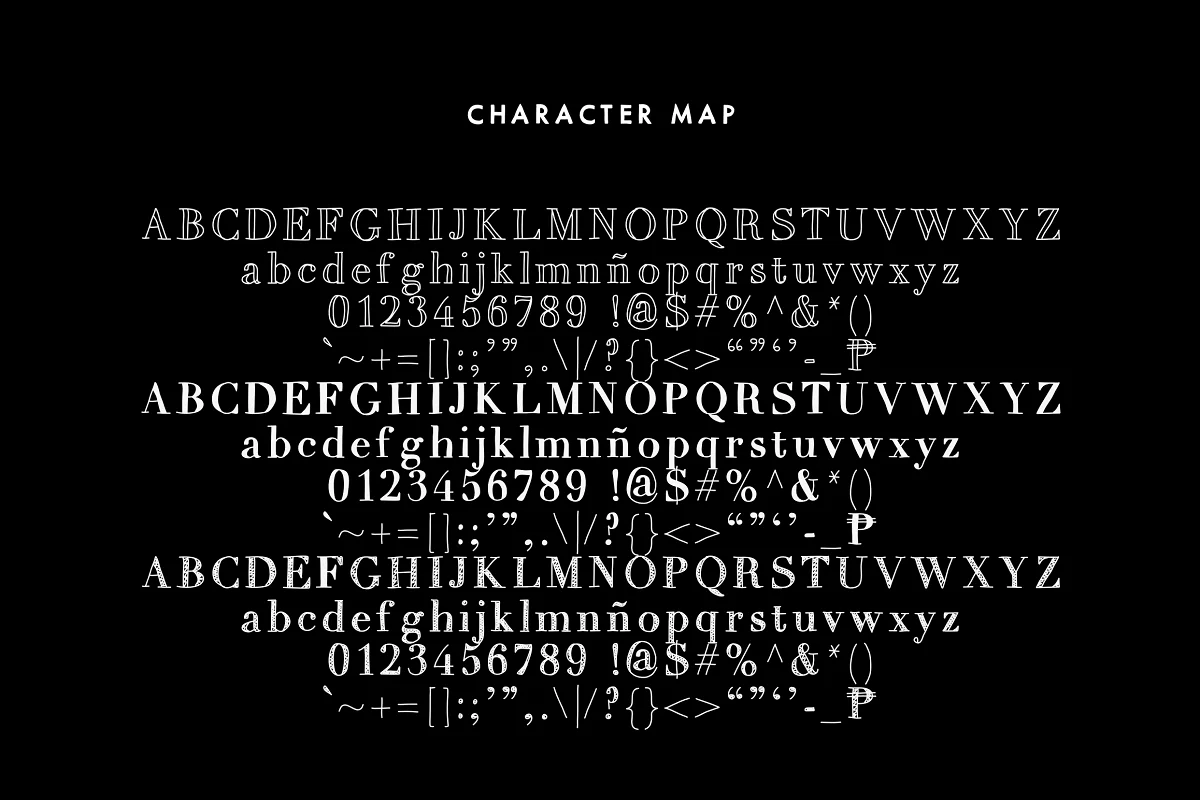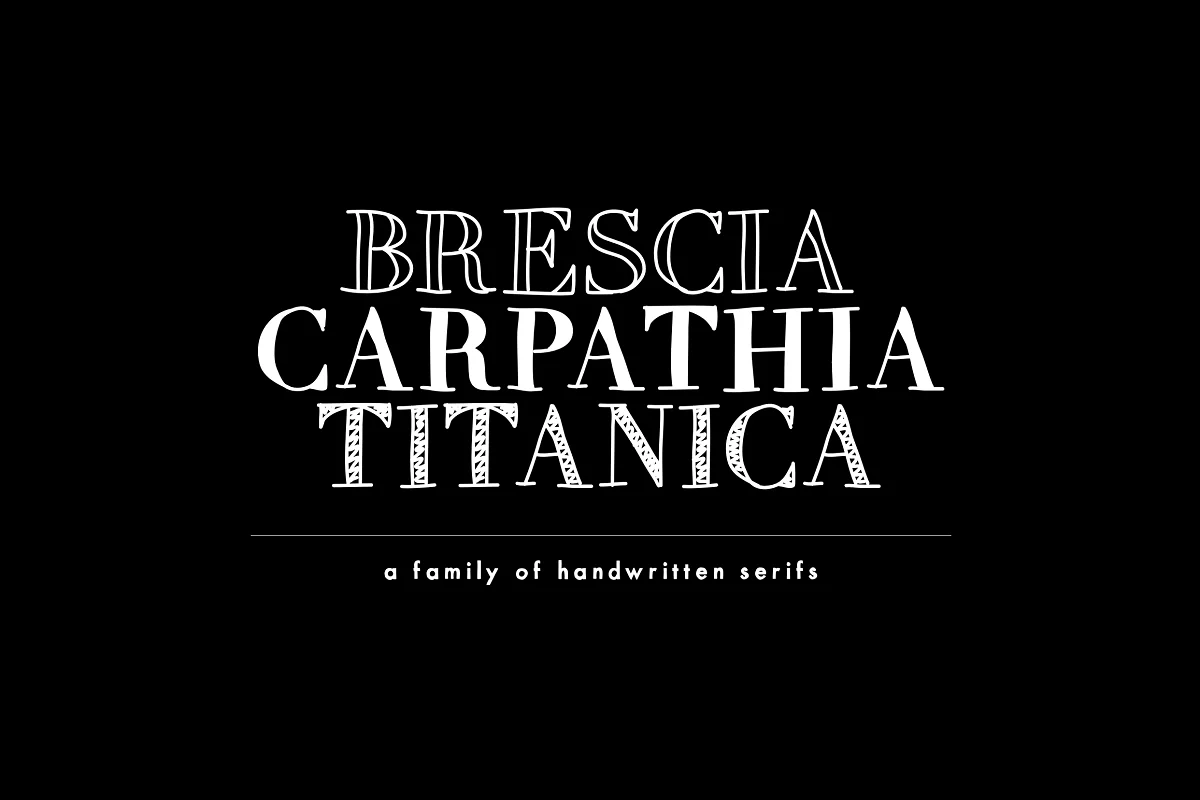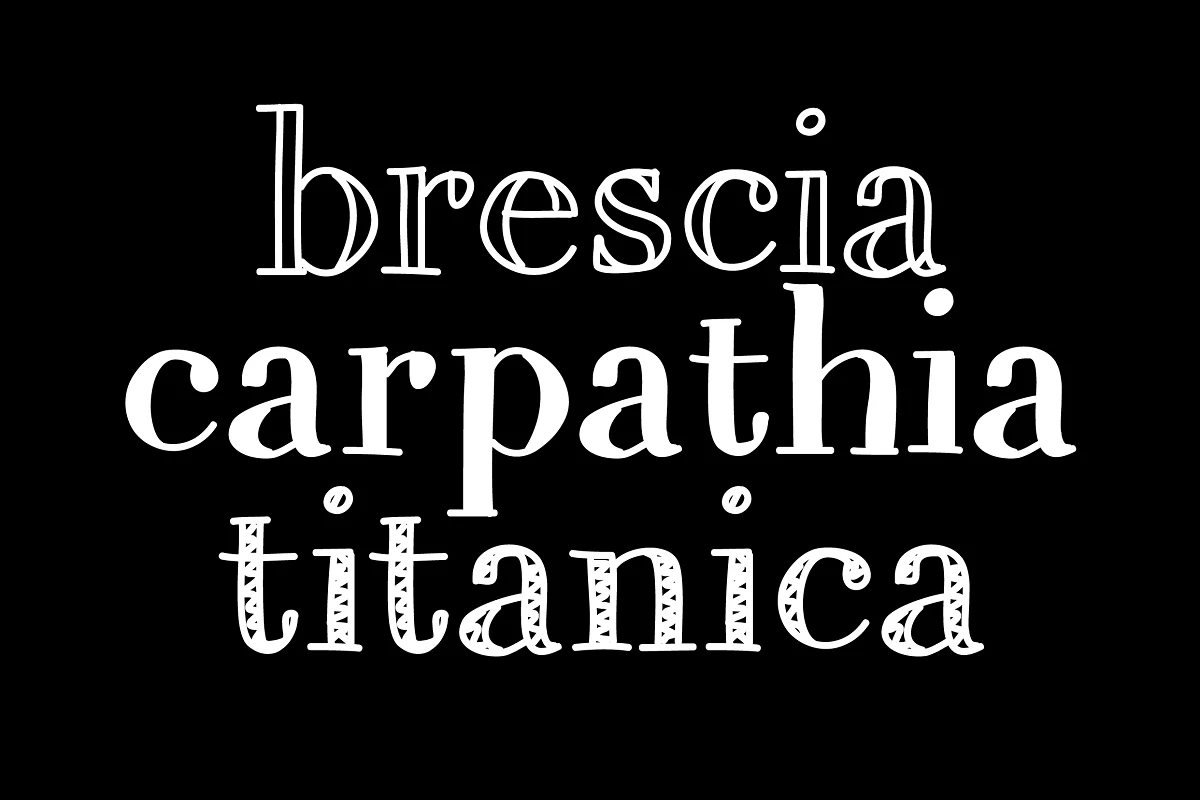
About the A Trio of Handwritten Serif Font
This is a family of handwritten serifs—a bundle of three different styles. These fonts can be used alone or in combination.
Switch up among the three fonts to create fun and interesting variations. Get creative! This font family is perfect for handmade and DIY-themed projects.
- (1) Mix Brescia
- (2) Mix Carpathia
- (3) Mix Titanica